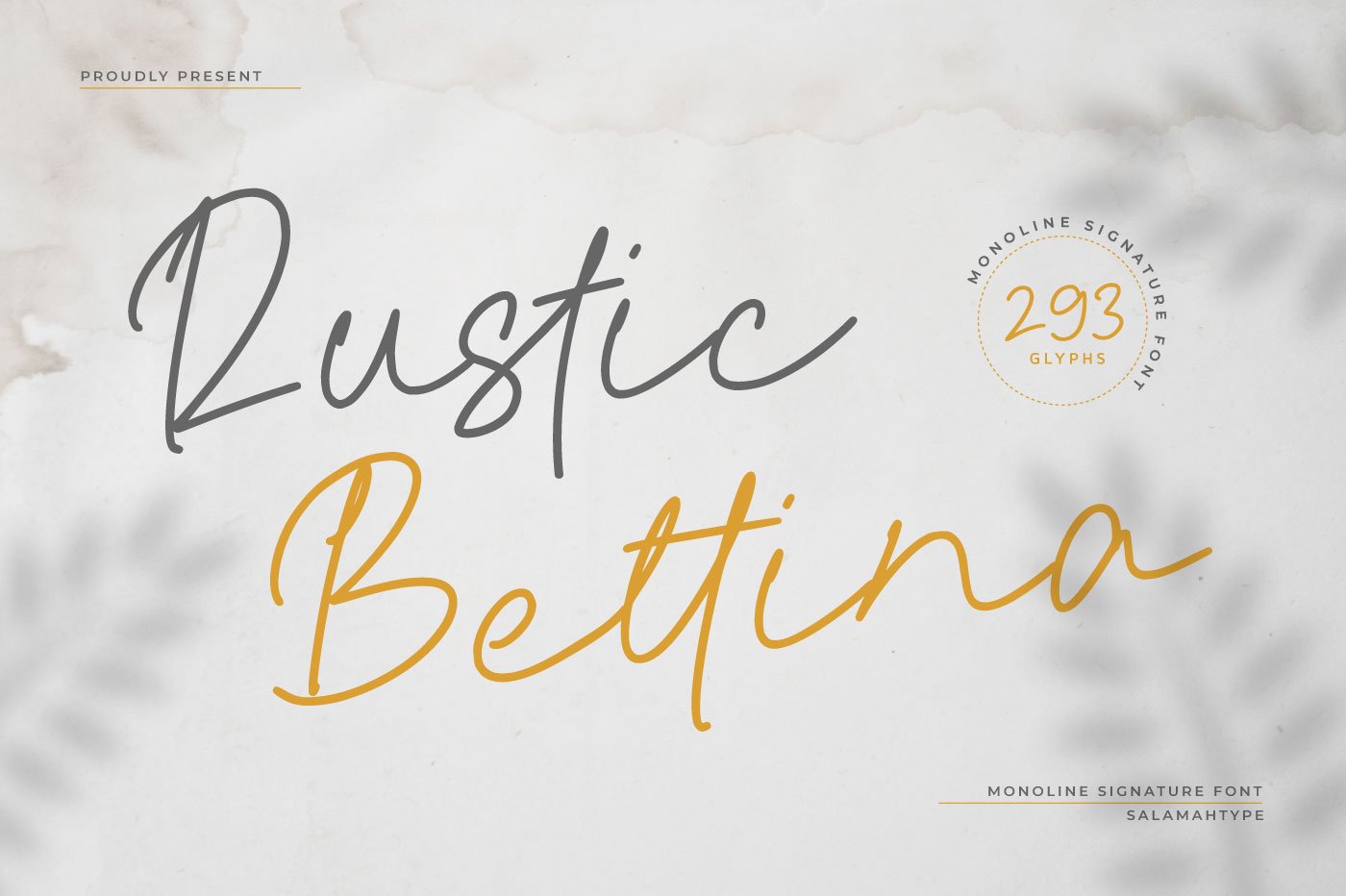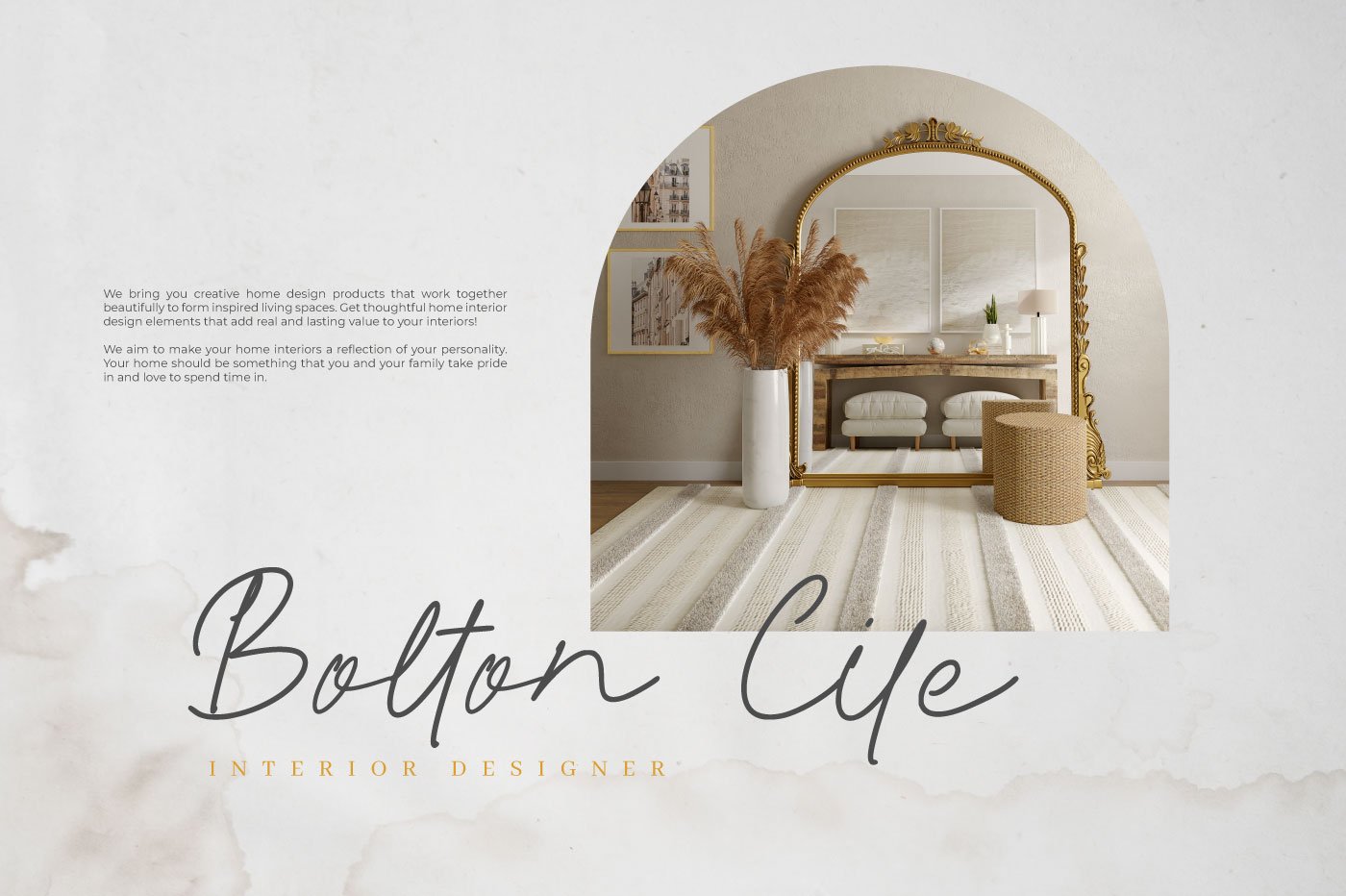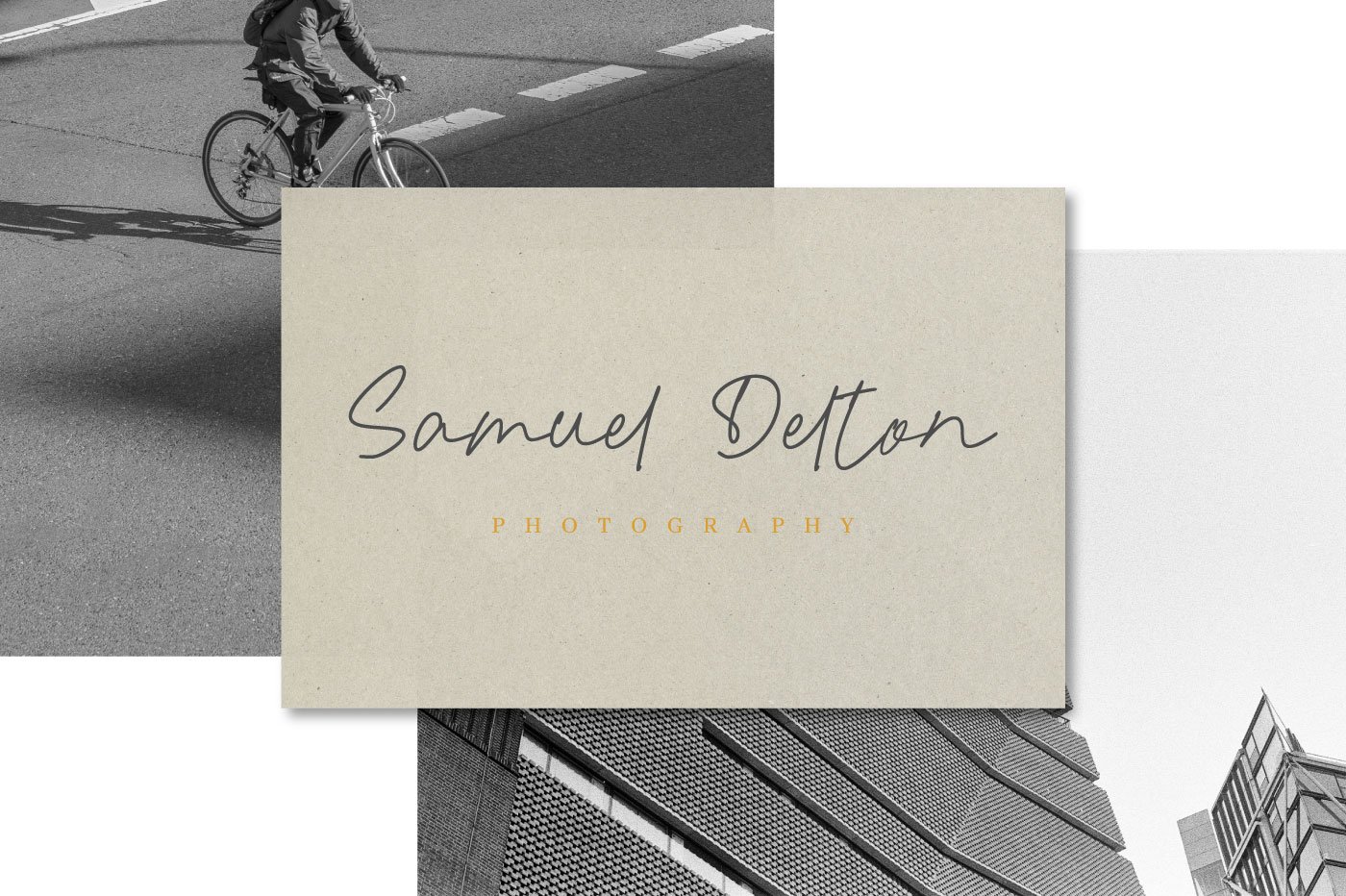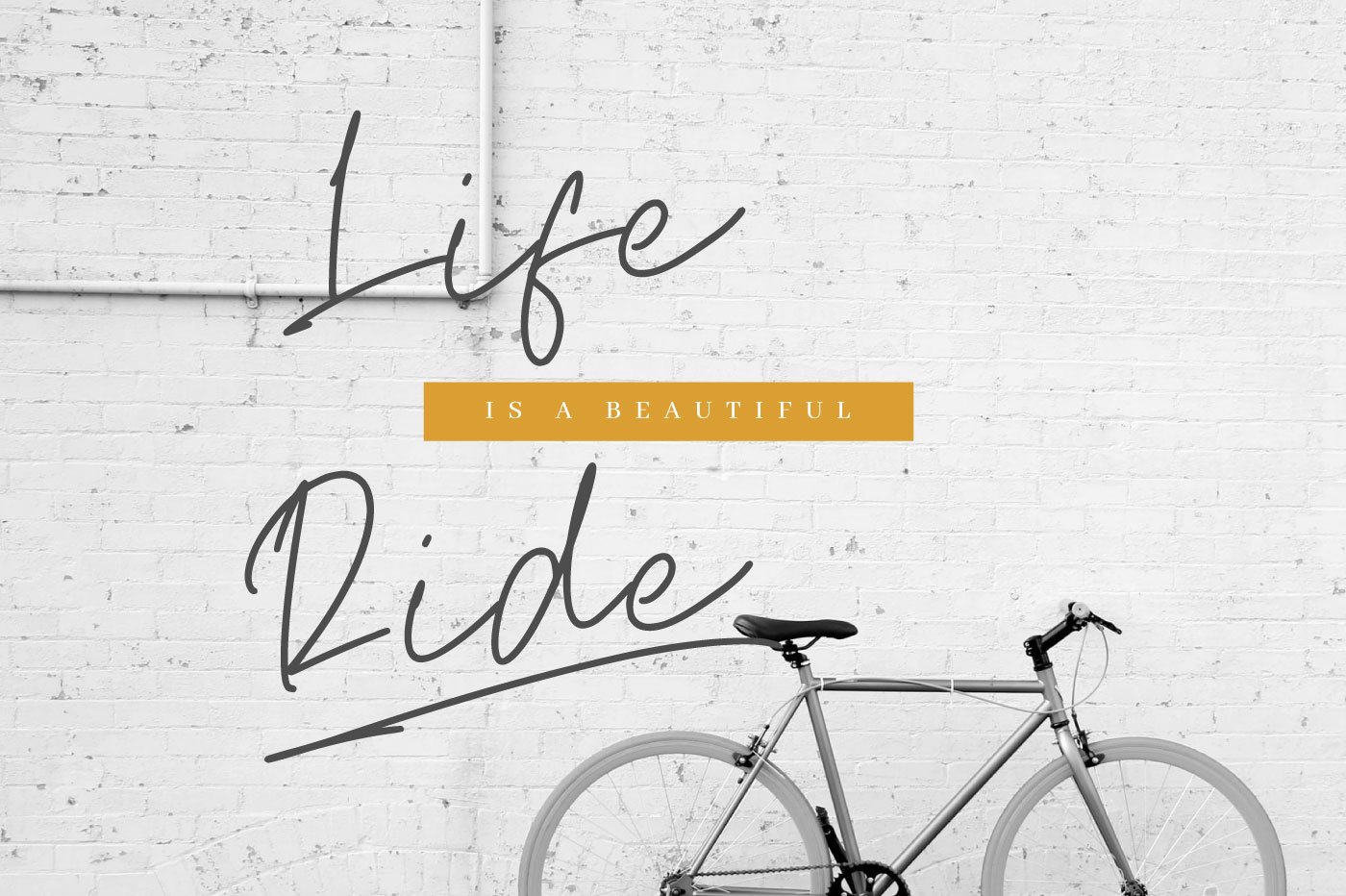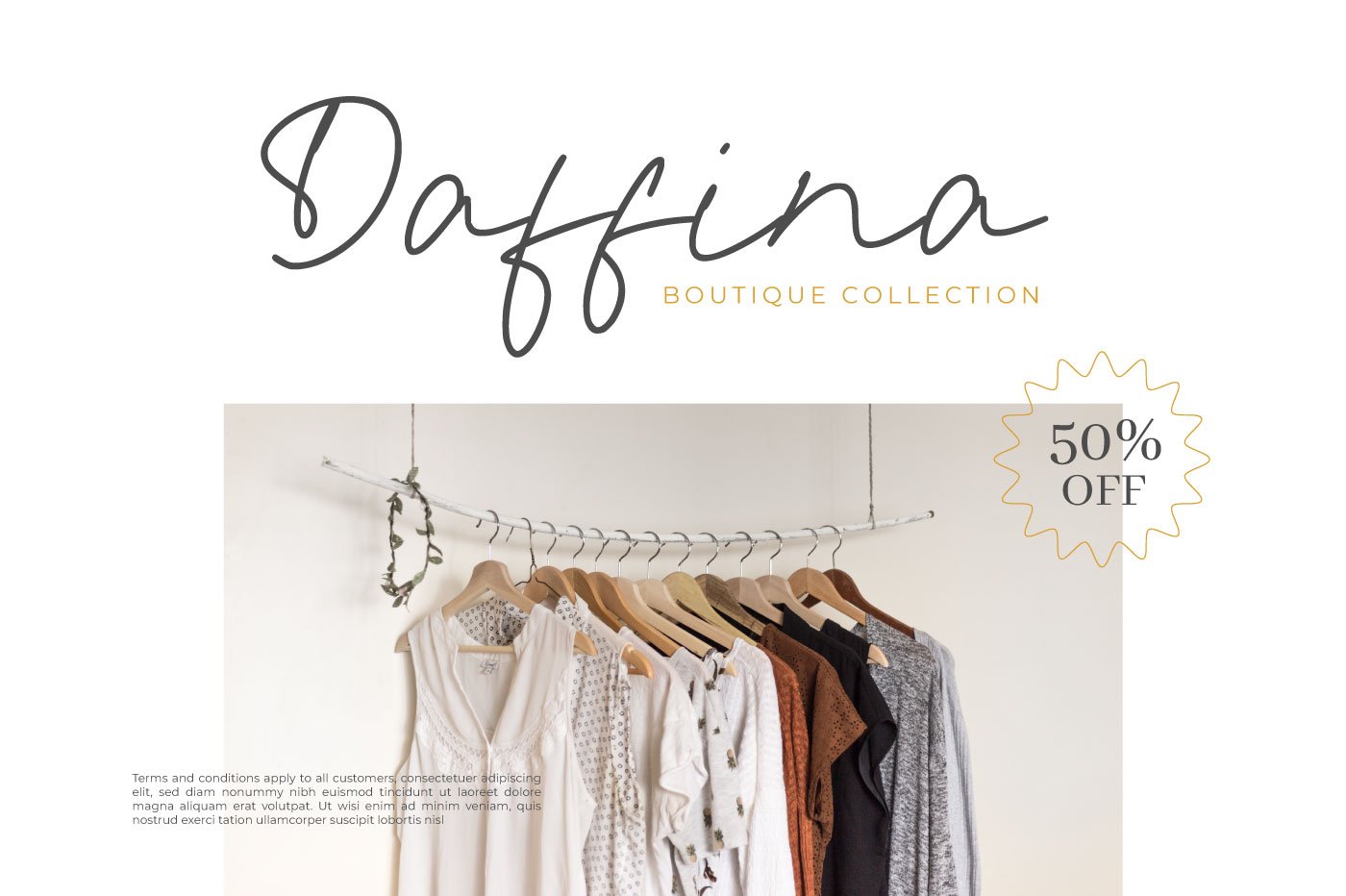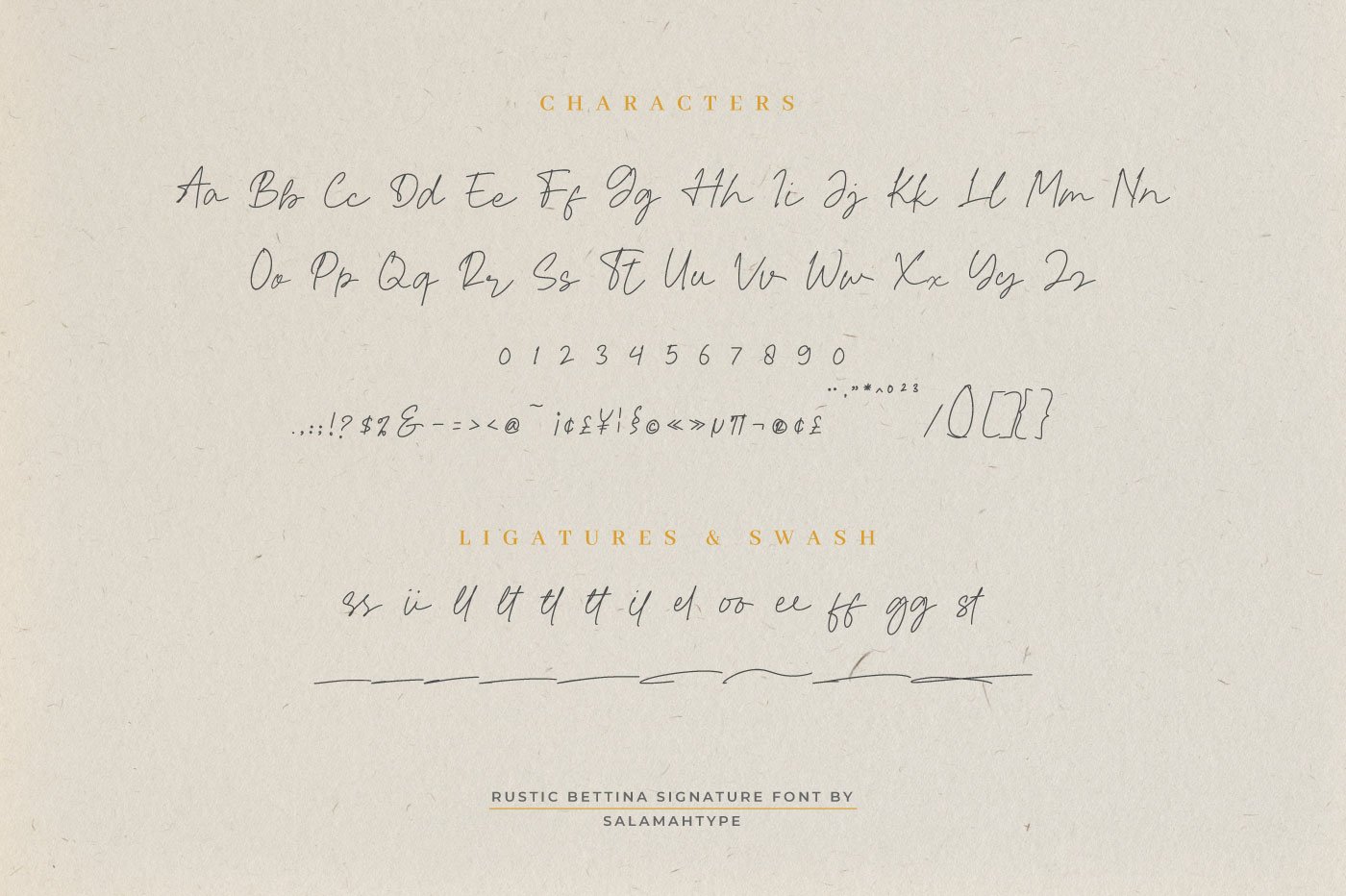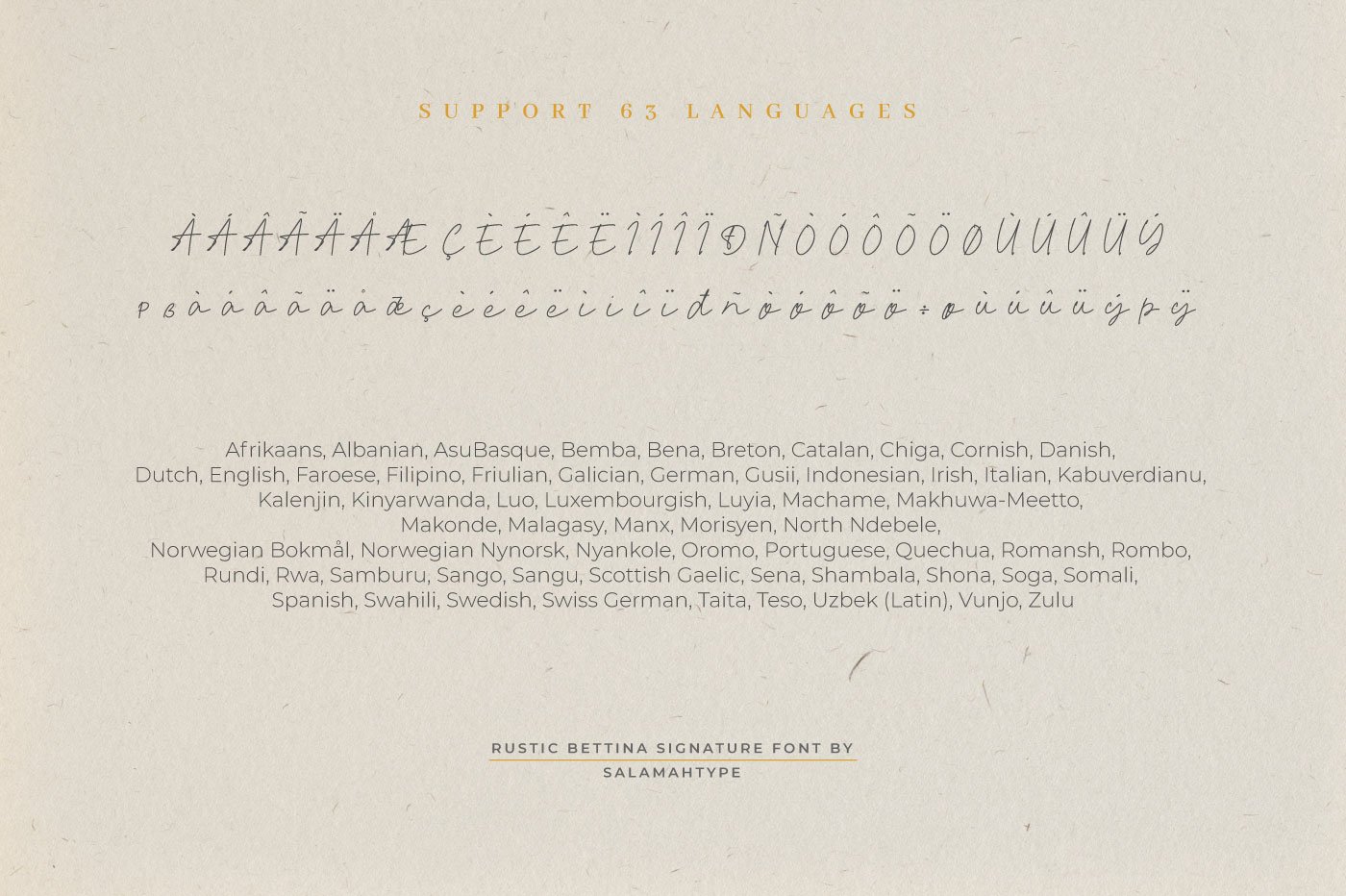
- Rustic Bettina Script
Rustic Bettina is an elegant monoline script font. This font is perfect for logo, social media posts, advertisements, product packaging, branding projects, wedding invitations, product designs, label, photography, watermark, stationery and any projects that need handwriting taste.
Features :
- Ligature
- Standard and Multilingual Glyphs